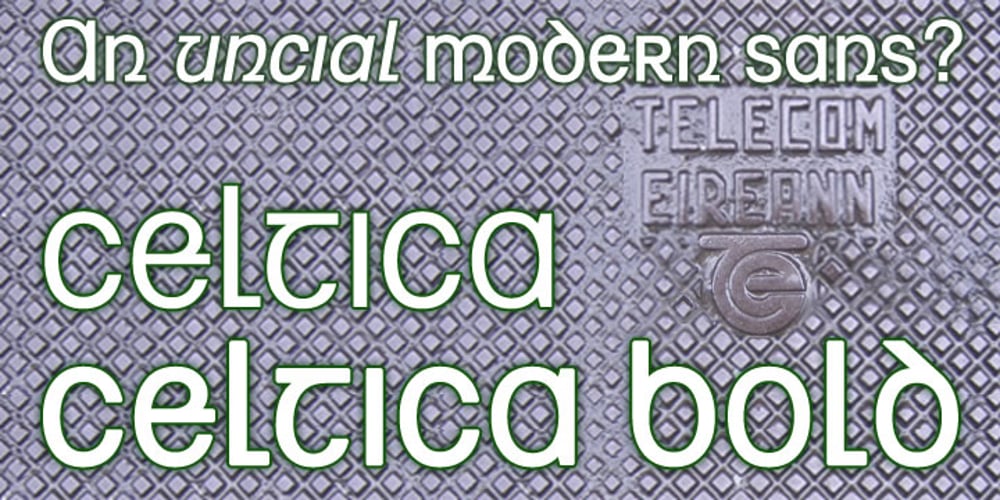
Celtica Font Family was designed by Keith Bates and published by K-Type. Celtica contains 2 styles and family package options. Celtica is a kind of Helvetica meets Hibernia; the font can happily be used anywhere a Celtic identity is required for a twenty-first century context. The ubiquity and clarity of the sans serif lend legibility to the uncial forms of some letters, which become accessible to any audience of latin alphabet users. Even the ‘insular’, flat-topped G/g, is readable enough for general use in an increasingly popular and diverse typographical culture. The fonts contain Irish lenited consonants (with dot accents), Tironian et, and extra Welsh vowels.